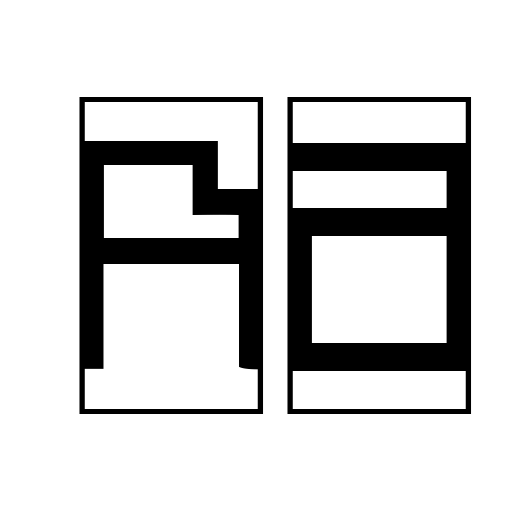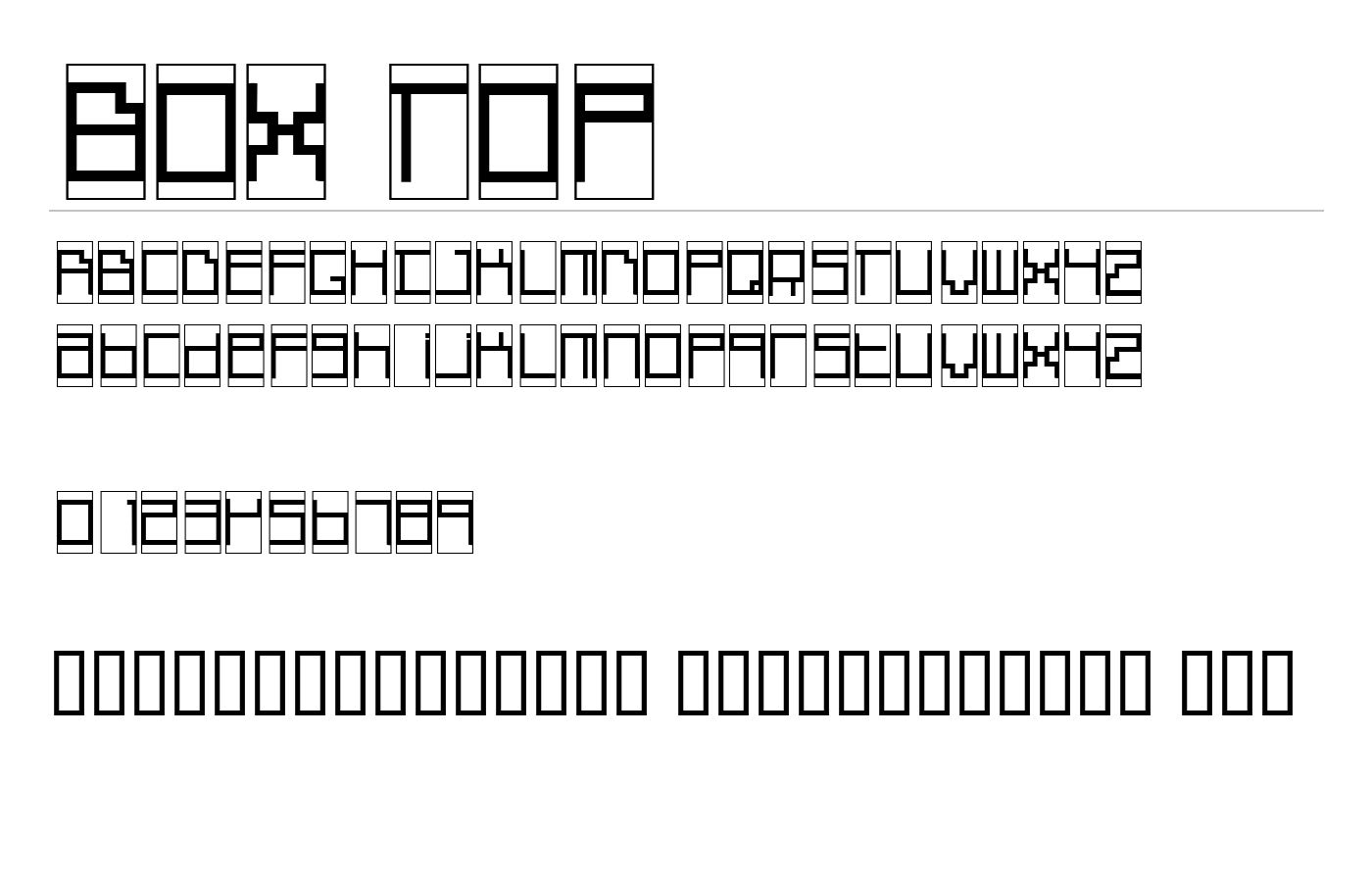
Box Top Font is a modern, geometric sans serif typeface characterized by its bold, blocky letterforms enclosed within rectangular outlines. The font features a uniform stroke weight with low contrast, sharp corners, and a distinctive pixel-like, modular structure that gives it a tech-inspired, futuristic feel. Ideal for digital displays, logos, and creative branding, this font works well where a striking, modern look with a strong visual impact is desired.
Box Top Font